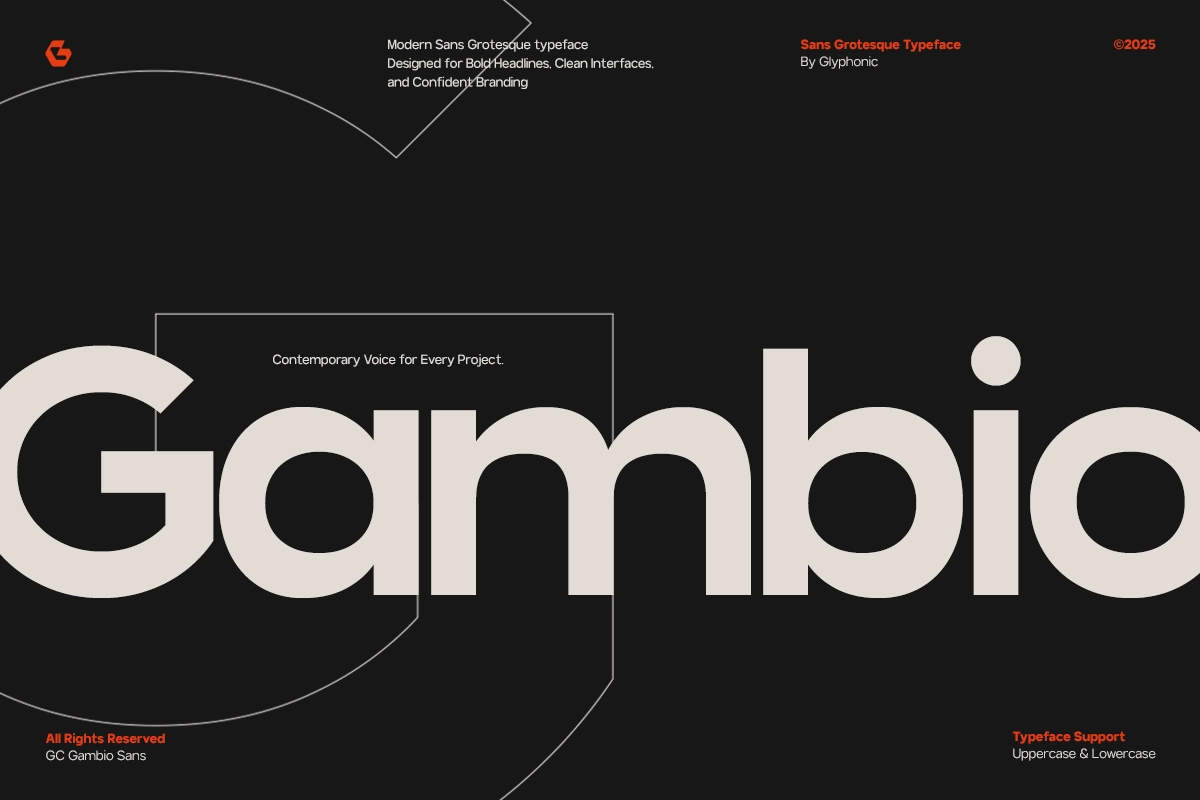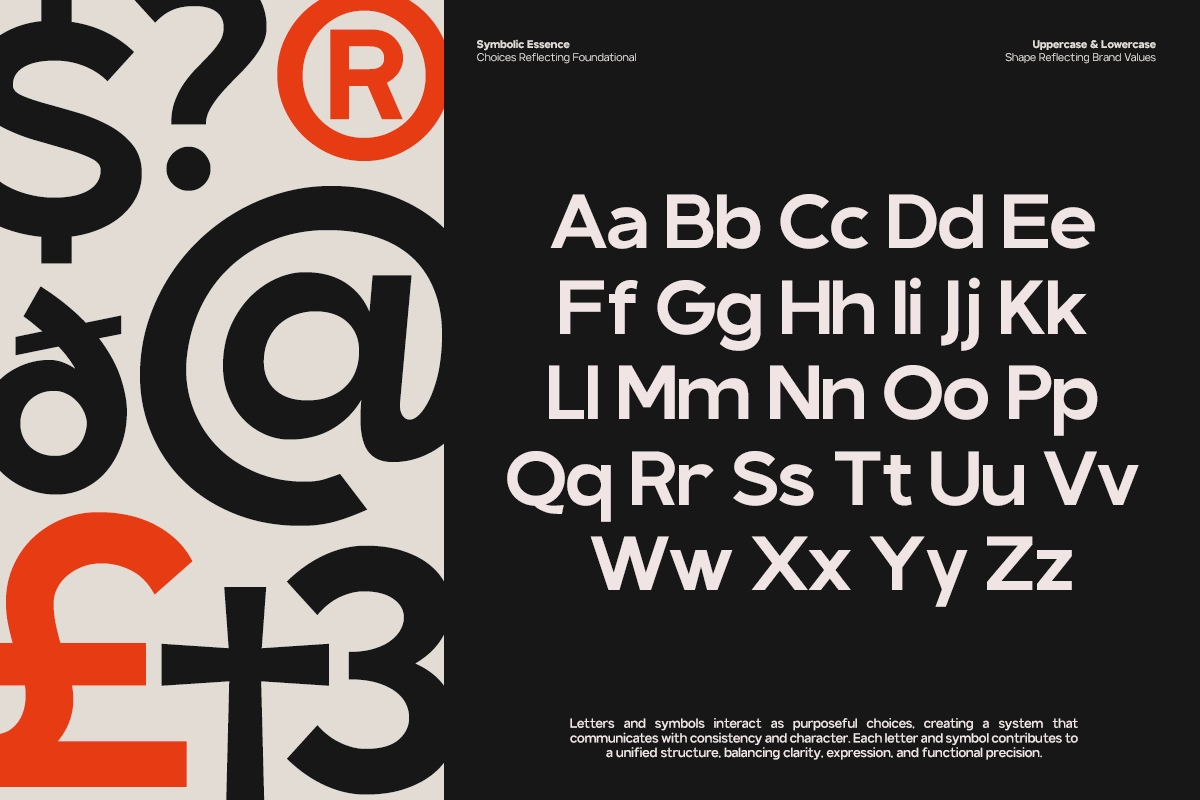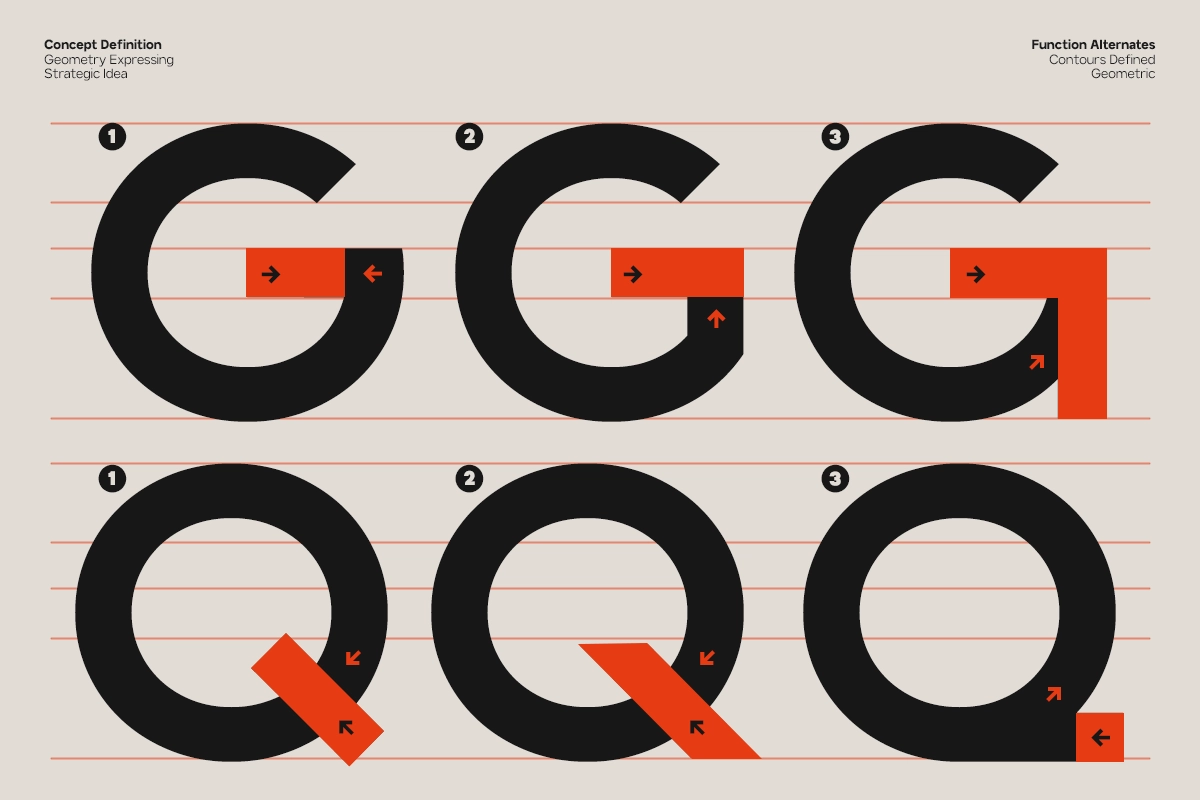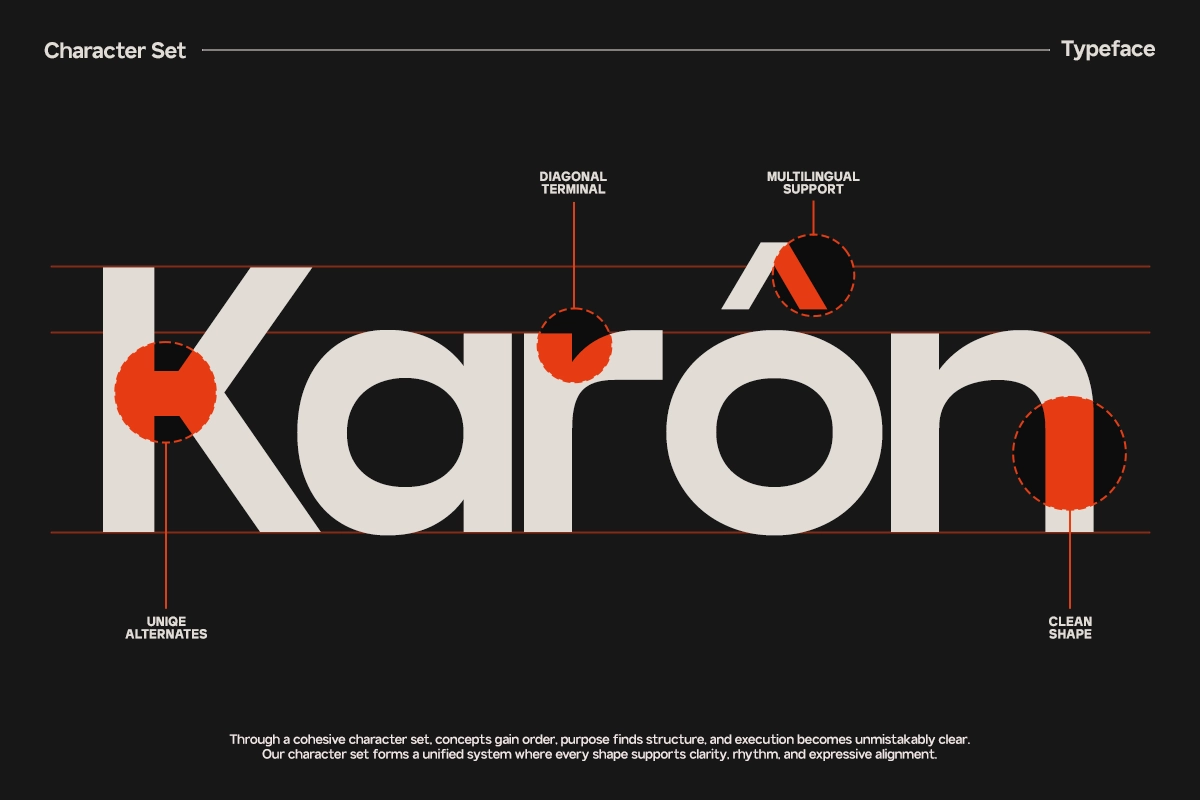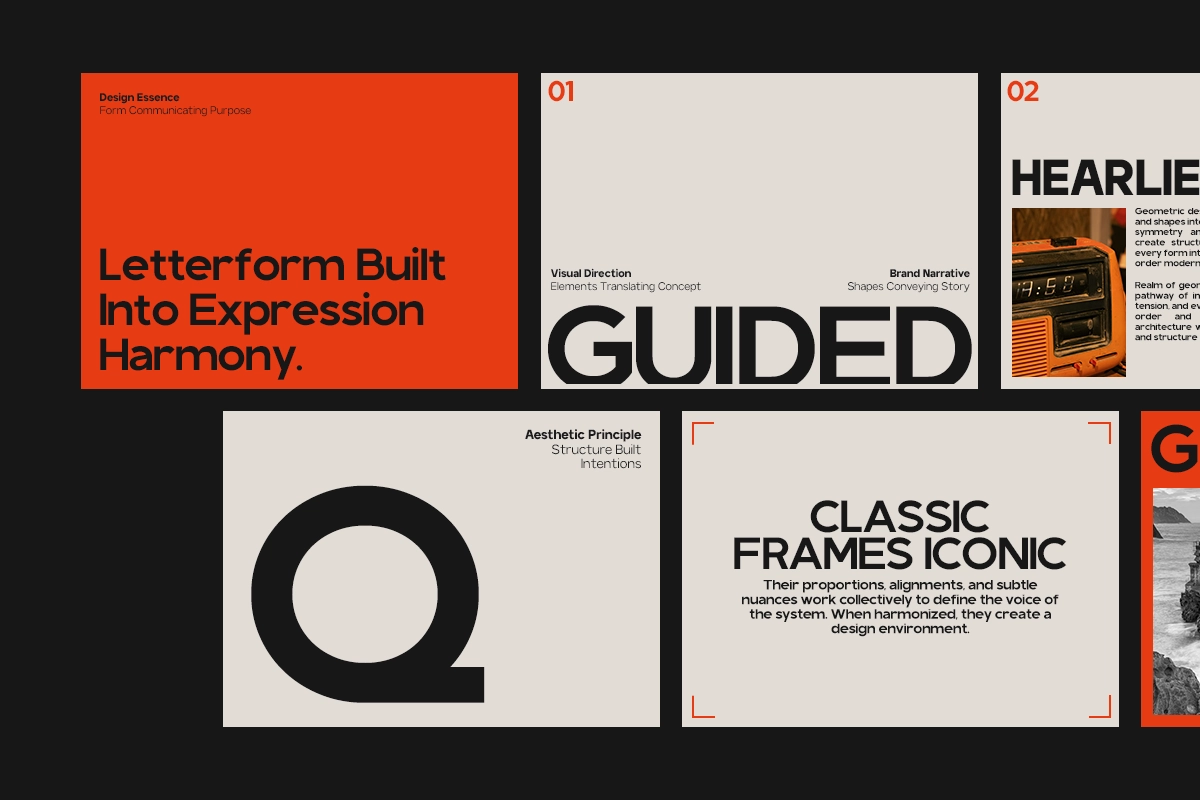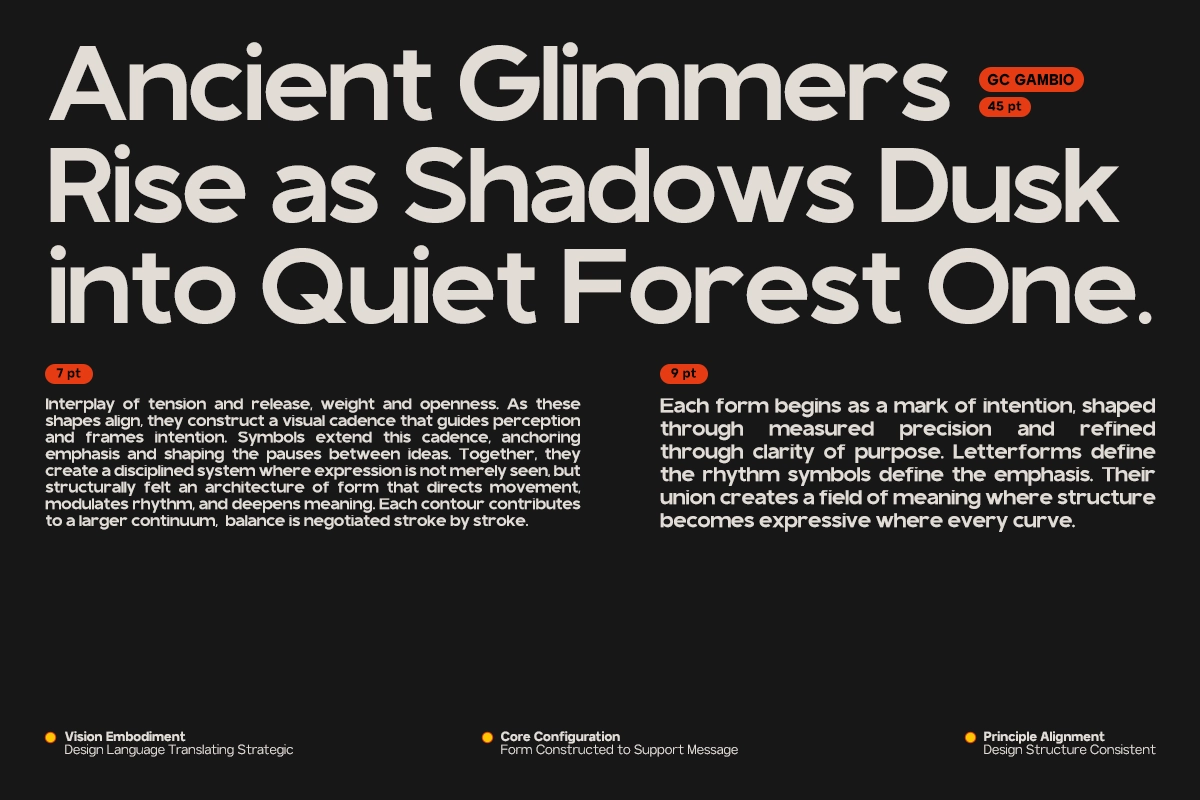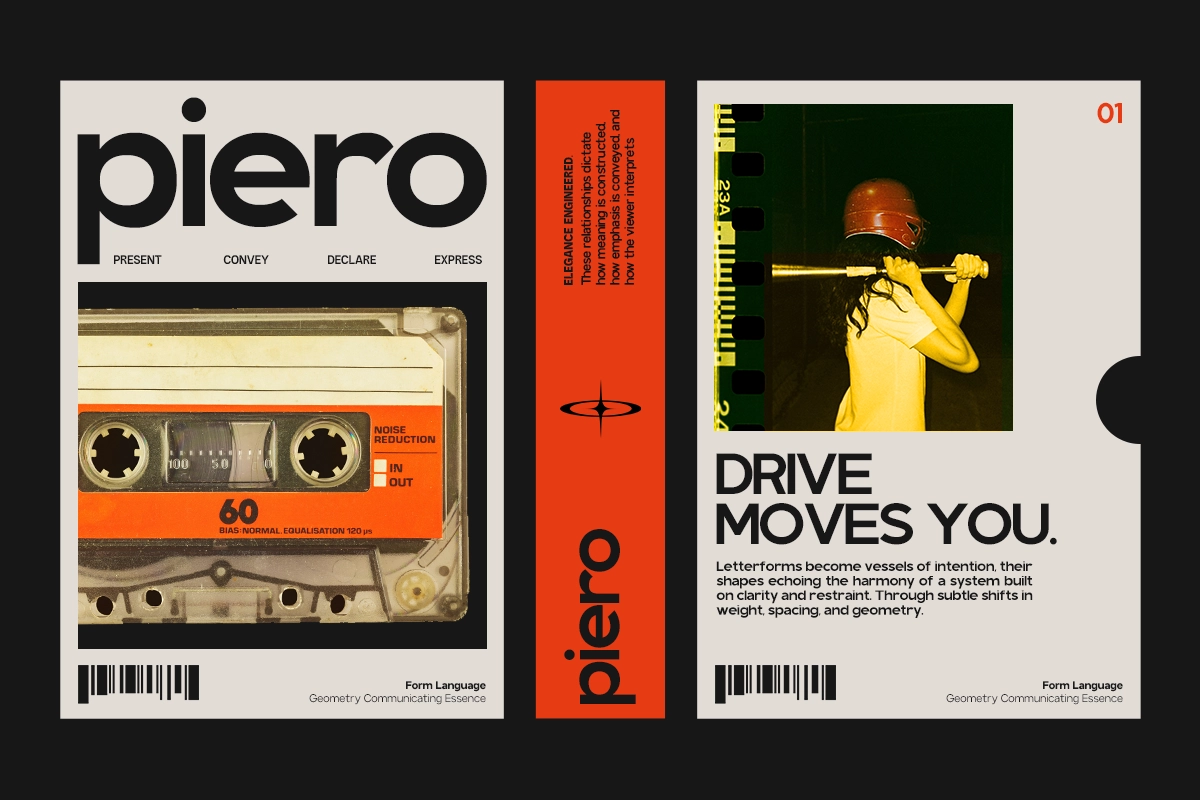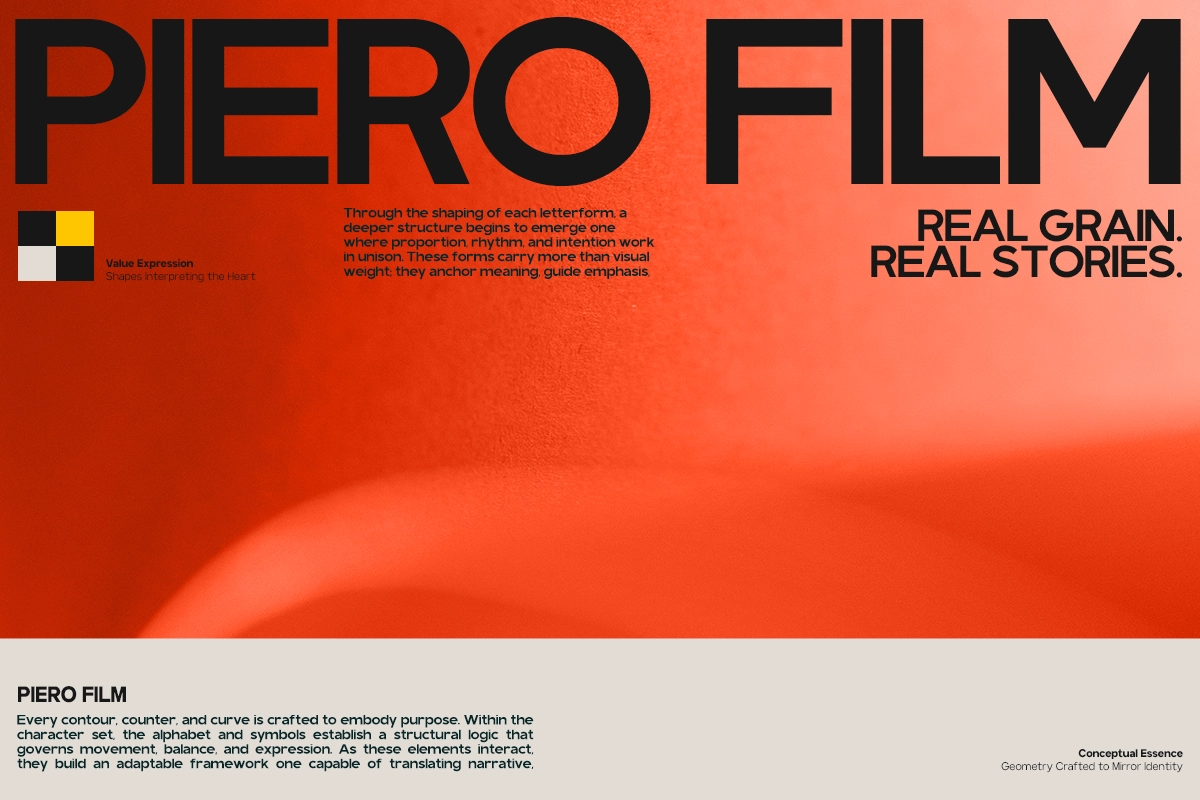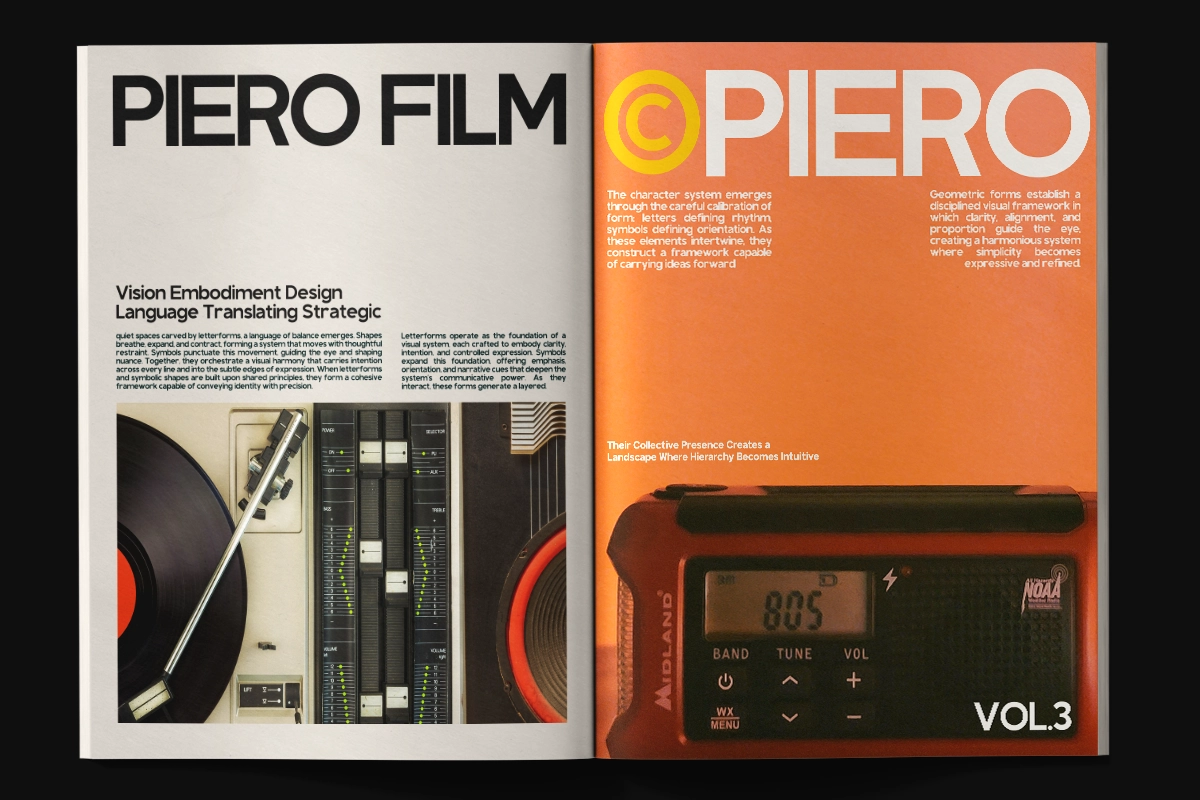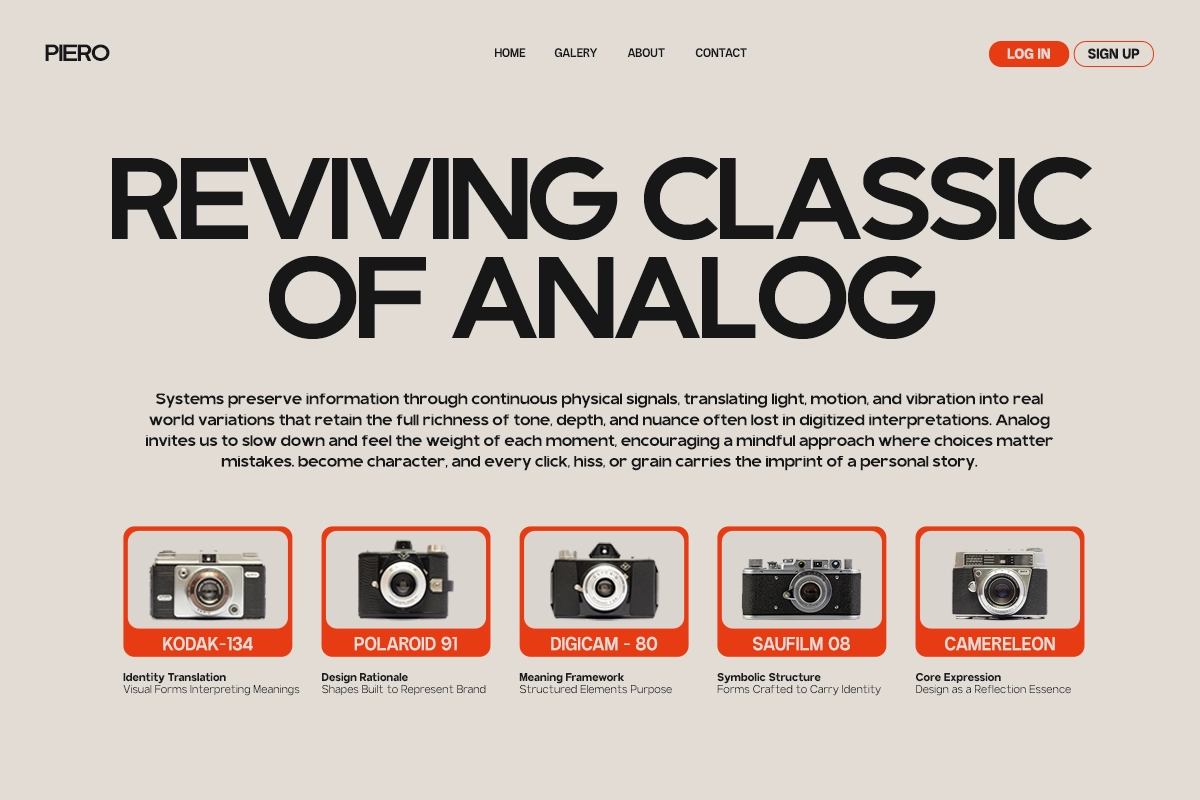
GC Gambio - Modern Sans Grotesque
GC Gambio Sans
Gambio is a modern sans grotesque typeface built for bold headlines, clean interfaces, and confident branding. Its crisp geometry, balanced proportions, and contemporary rhythm make it a reliable choice for editorial layouts, posters, packaging, and digital UI—delivering clarity at small sizes and strong presence at display scale.
Designed as an all-purpose workhorse with a refined, minimal character, Gambio brings structure and consistency to any visual system while still feeling fresh and expressive. Use it for logotypes, identity systems, web design, social media graphics, product pages, and presentation decks where you want a modern, premium tone.
- Uppercase & Lowercase Characters
- Modern Sans Grotesque Style